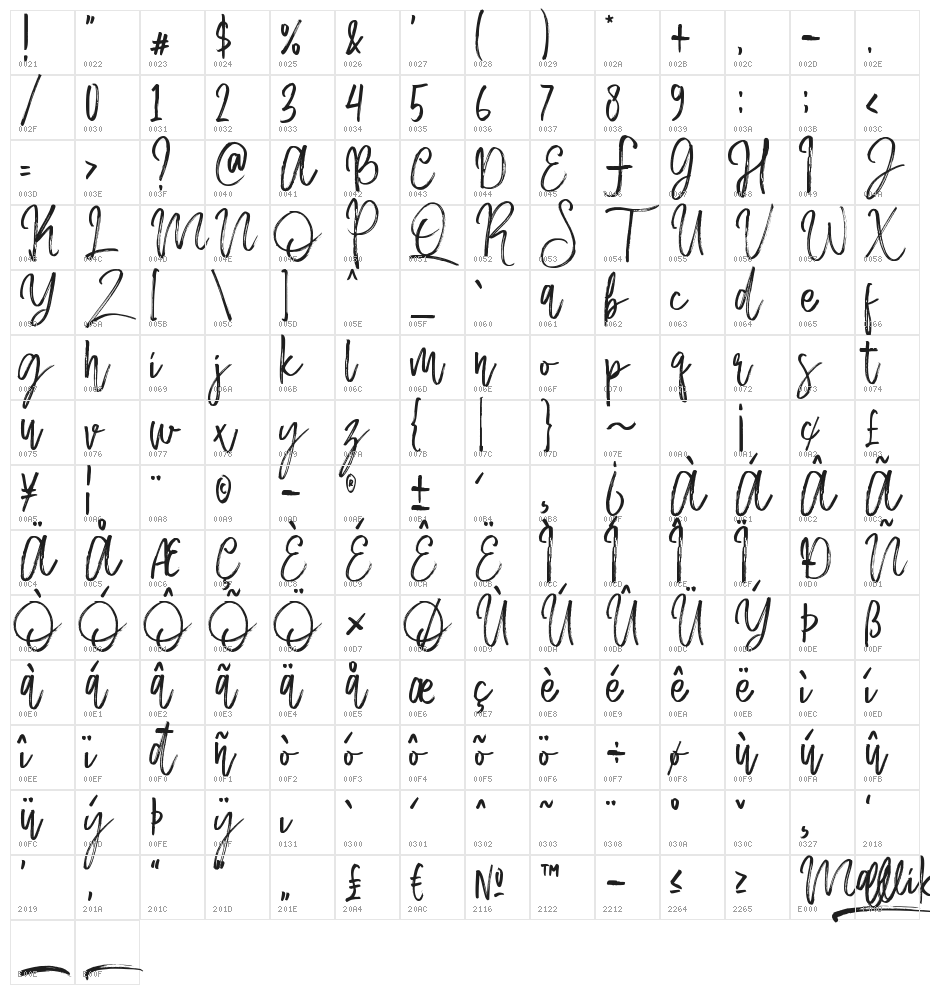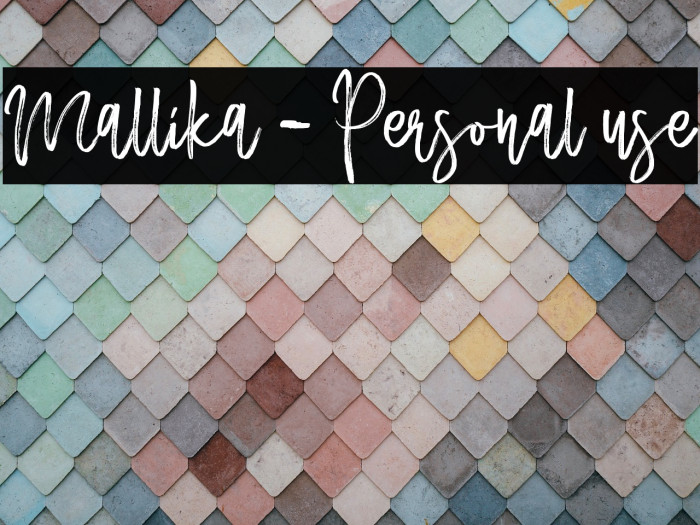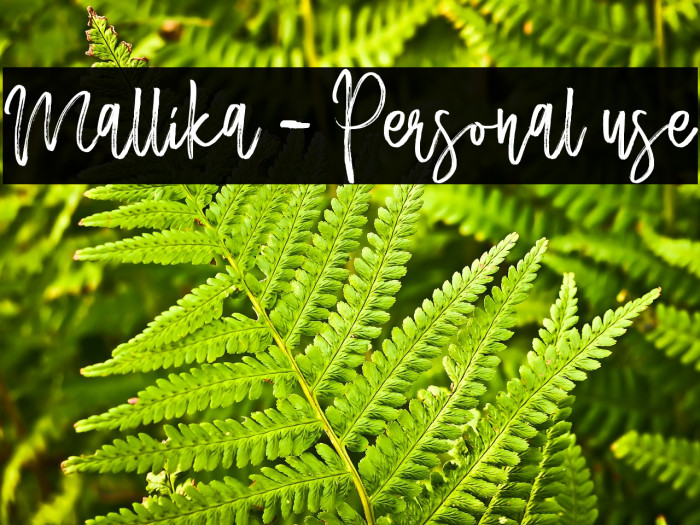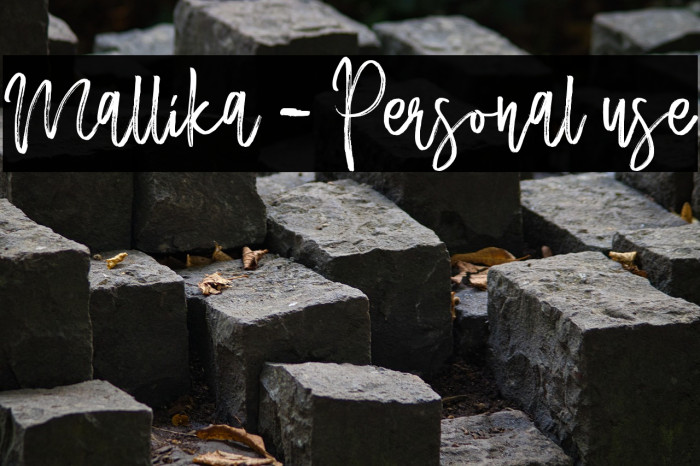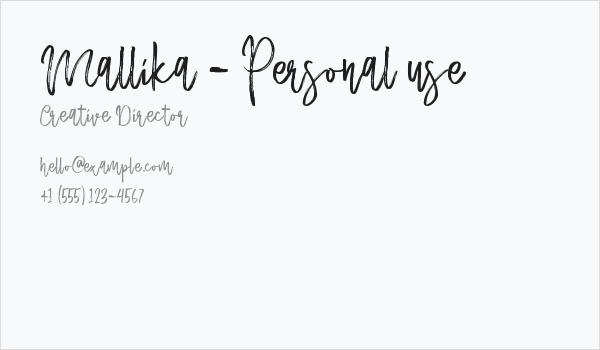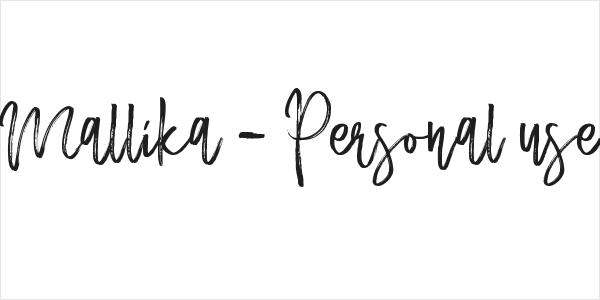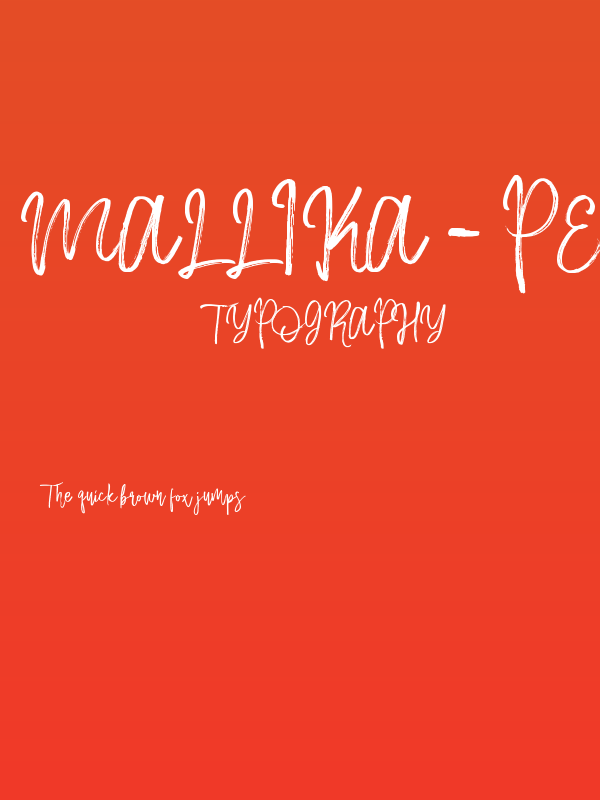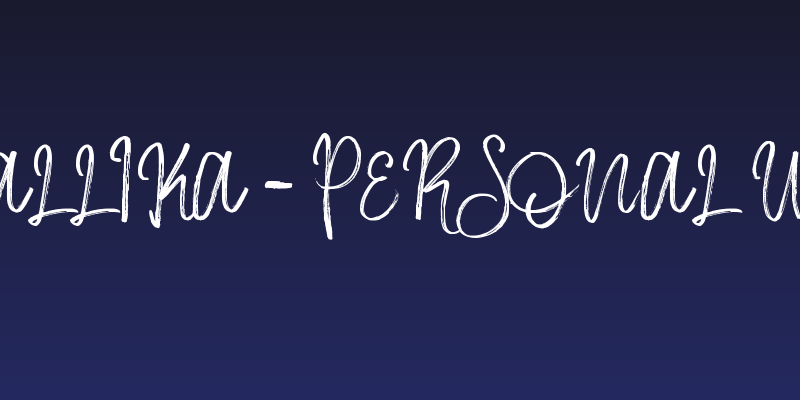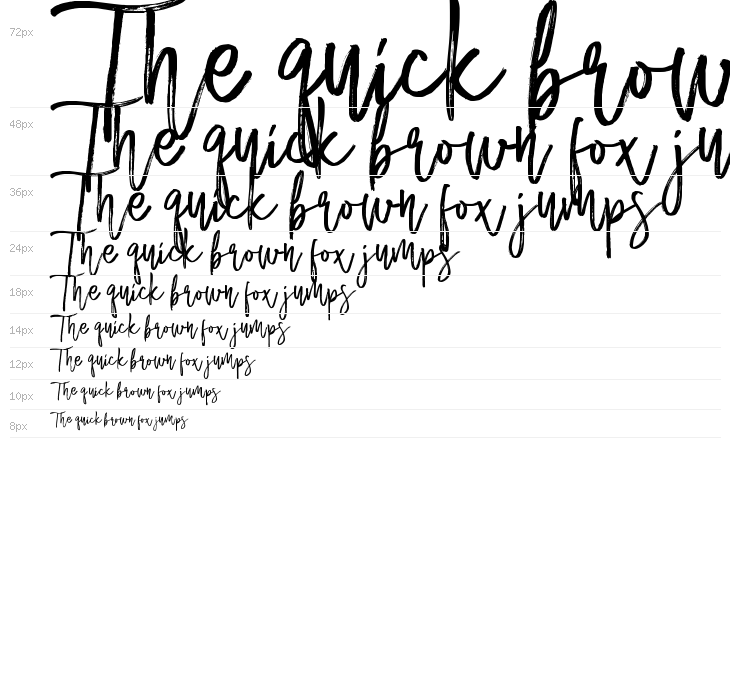
Mallika - Personal use Font
Mallika - Personal use Description
This font features a dynamic and expressive handwritten style with a modern flair. The letters are crafted with a brush-like texture, giving them a lively and energetic appearance. The uppercase and lowercase characters flow seamlessly, maintaining a consistent rhythm throughout. The numerals and special characters complement the alphabet with their bold and artistic strokes. This font exudes a sense of creativity and spontaneity, making it ideal for projects that require a personal touch. The overall design is both playful and sophisticated, suitable for a variety of creative applications.